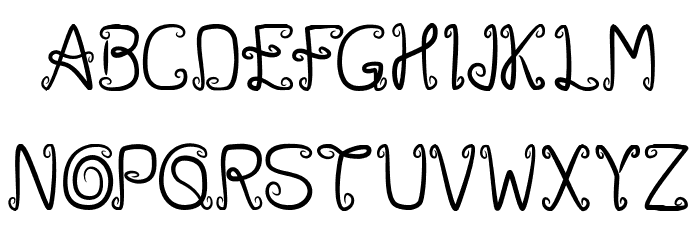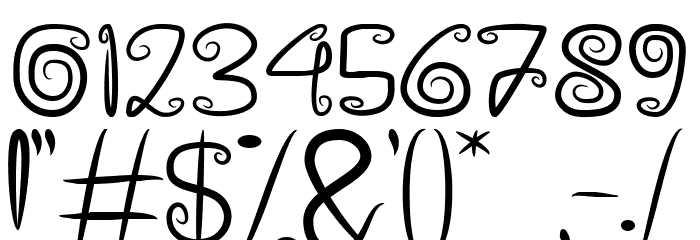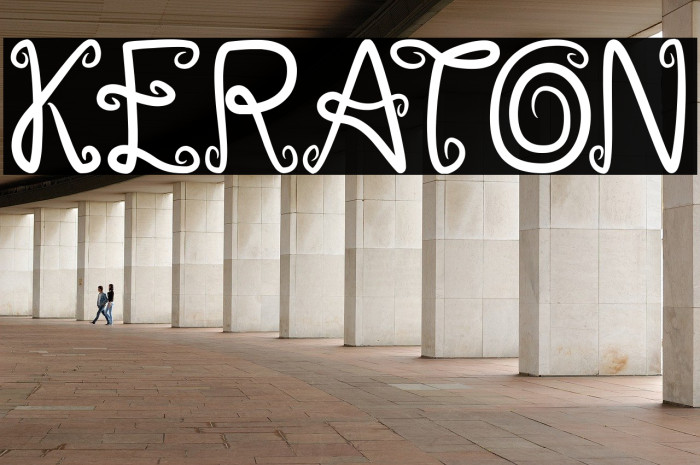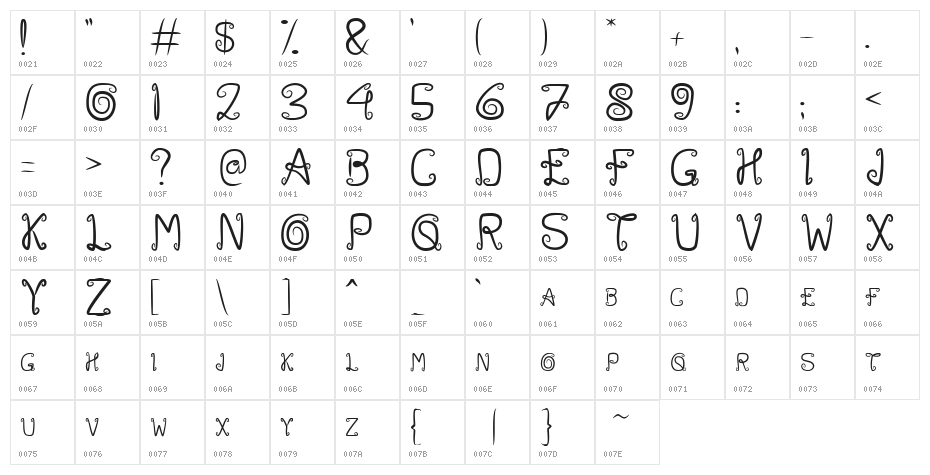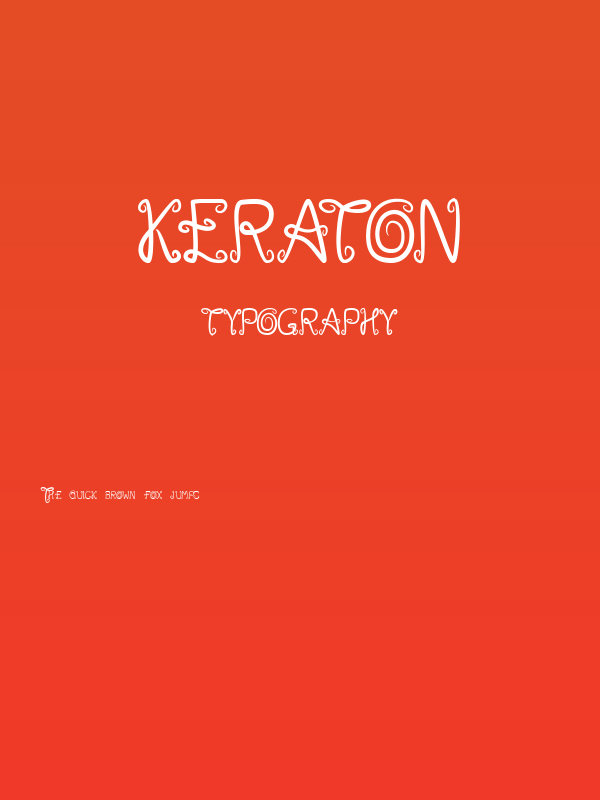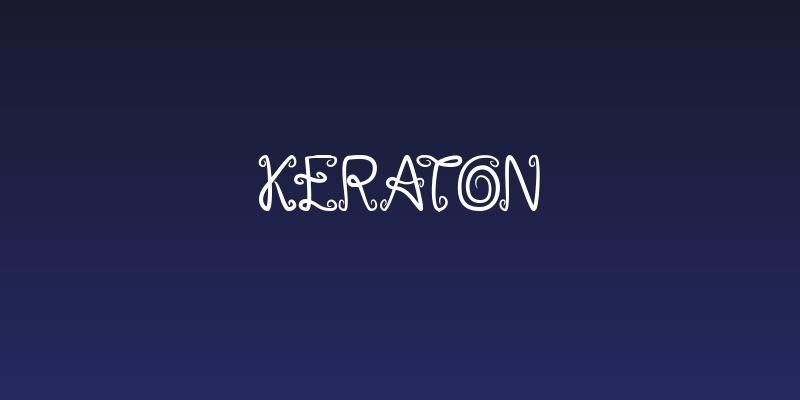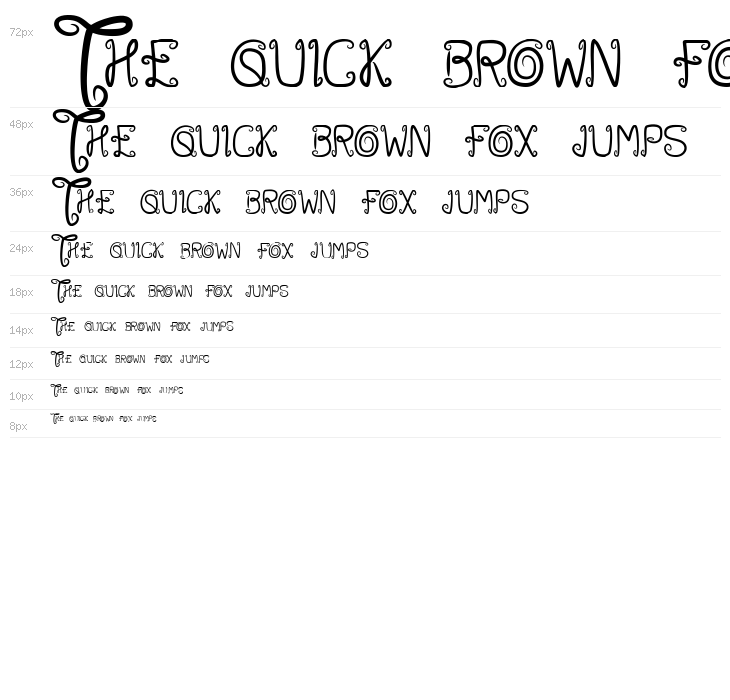
KERATON Font
This font features a whimsical and playful design, characterized by its curly and decorative elements. Each letter is adorned with unique swirls and loops, giving it a lively and artistic appearance. The uppercase and lowercase letters maintain a consistent style, with rounded edges and a sense of movement. Numbers and special characters are equally ornate, adding to the font's overall charm. The font's distinct personality makes it suitable for creative and fun projects, where a touch of elegance and flair is desired.
A whimsical and decorative font with curly, artistic elements.
- Proposed Projects: Ideal for invitations, greeting cards, children's books, and playful branding.